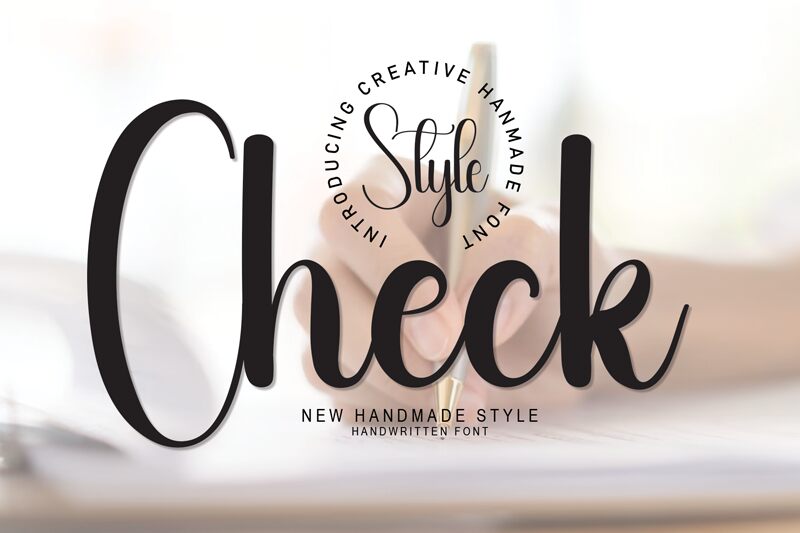
Check
Check font, designed by Scratchones, is a captivating handwritten typeface that exudes charm and creativity. Its distinct handcrafted style offers an inviting visual appeal with an organic flow that mimics natural penmanship. The font's bold strokes and elegant curves create a warm, friendly aesthetic, making it an ideal choice for projects needing a personal touch.
Perfect for branding, invitations, greeting cards, and creative digital content, Check font seamlessly integrates into both casual and professional designs. Its unique characteristics stand out in headlines yet remain versatile enough for body text. Given its free availability for download, Check font provides designers with a cost-effective solution to add personality and flair to their work.
This quirky yet refined typeface is set to elevate any project with its expressive style and dynamic presence.